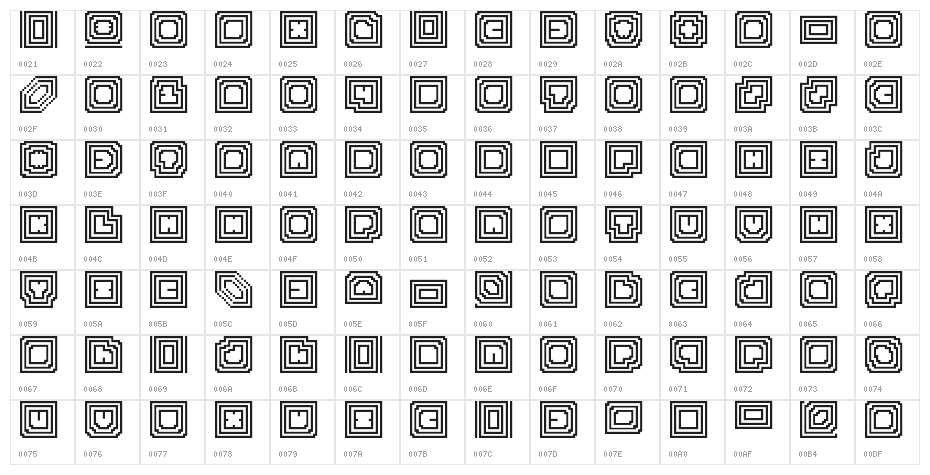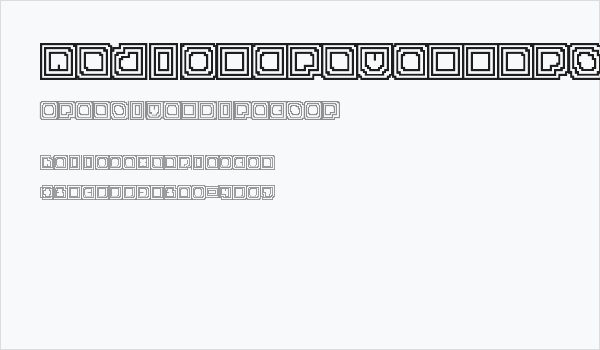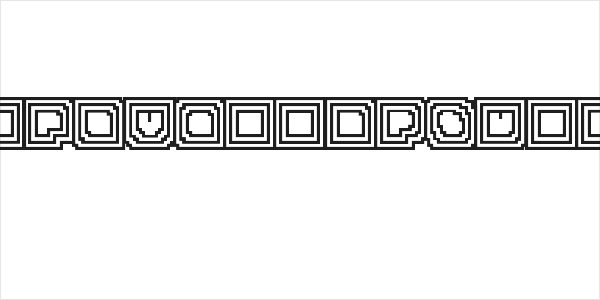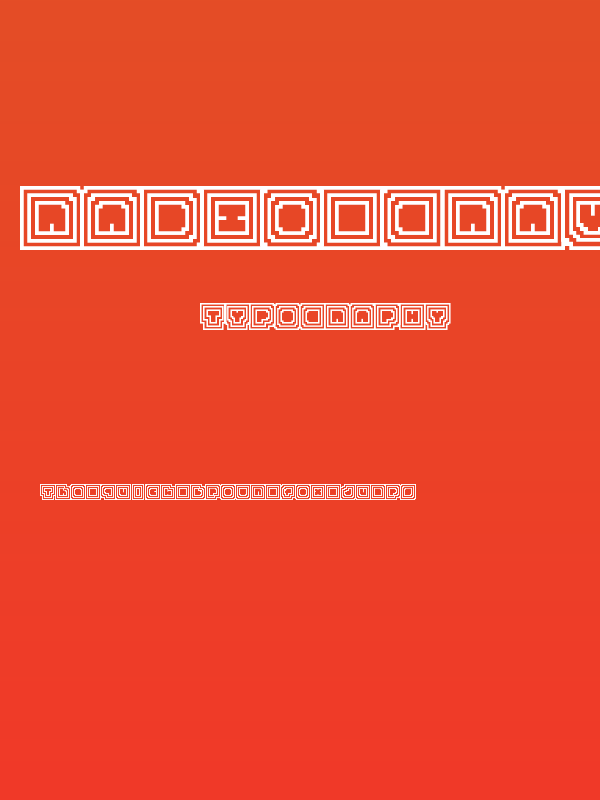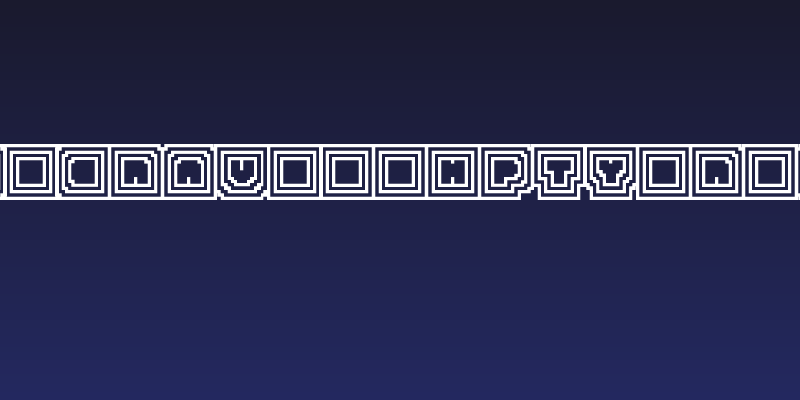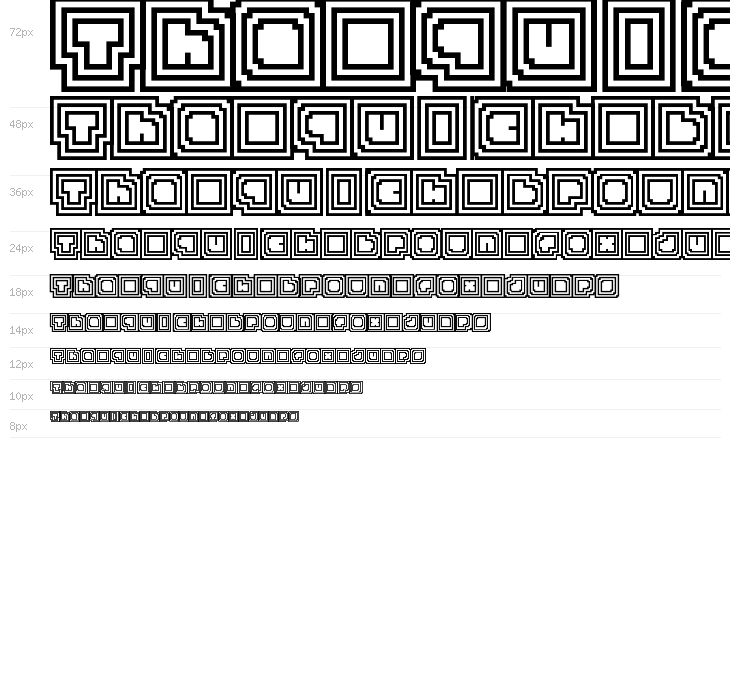
Radio Grave Empty Regular Font
Radio Grave Empty Regular Description
This font features a unique, pixelated style with each character enclosed in a square frame. The design is reminiscent of retro video game graphics, with a blocky and geometric appearance. The characters are bold and distinct, making them highly legible despite their decorative nature. The enclosed squares add a layer of complexity and visual interest, making this font stand out. It is ideal for projects that require a vintage or digital aesthetic, such as video game designs, tech-themed posters, or retro-inspired branding. The uniformity of the squares provides a consistent structure, while the pixelated edges give it a playful and nostalgic feel.
| Use Case | Logos, Headlines |
| Proposed Projects | Ideal for video game designs, tech-themed posters, and retro-inspired branding. |